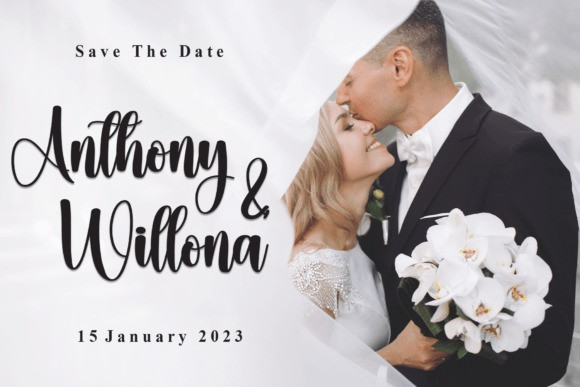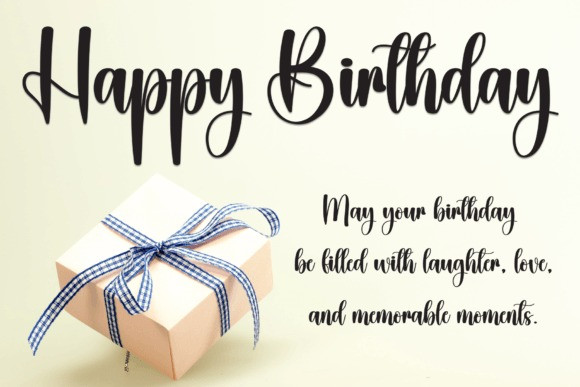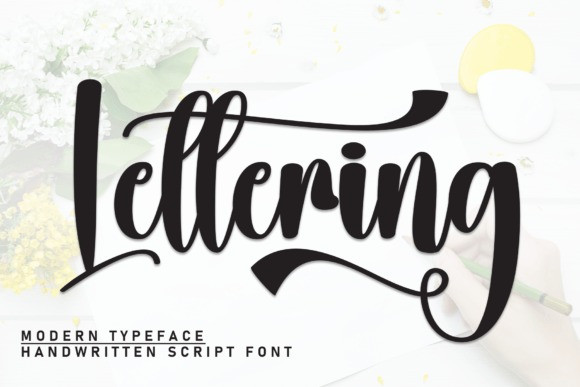
Lettering Script Type
Lettering Script Type is a lovely handwritten font that adds a touch of elegance to your text. What makes it stand out are the graceful swashes that add a subtle flair to each letter. This font is perfect for adding a personal and stylish touch to your projects, from invitations to creative designs. With its simple charm and artistic details, Lettering brings a warm and inviting feel to any text, making it a versatile choice for a range of applications.